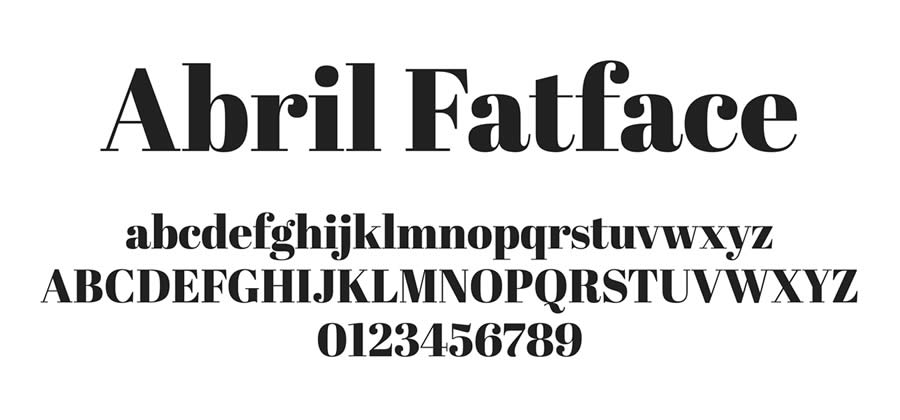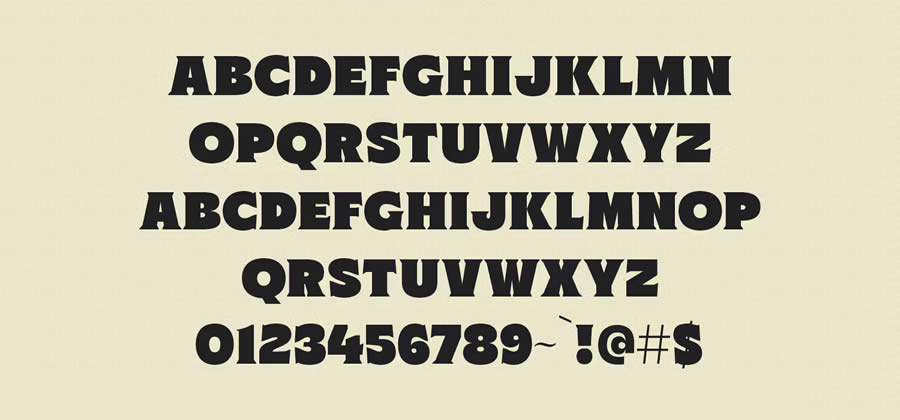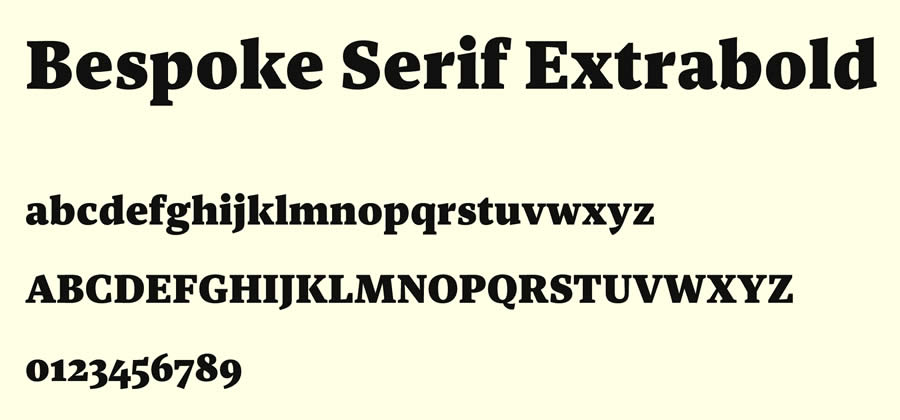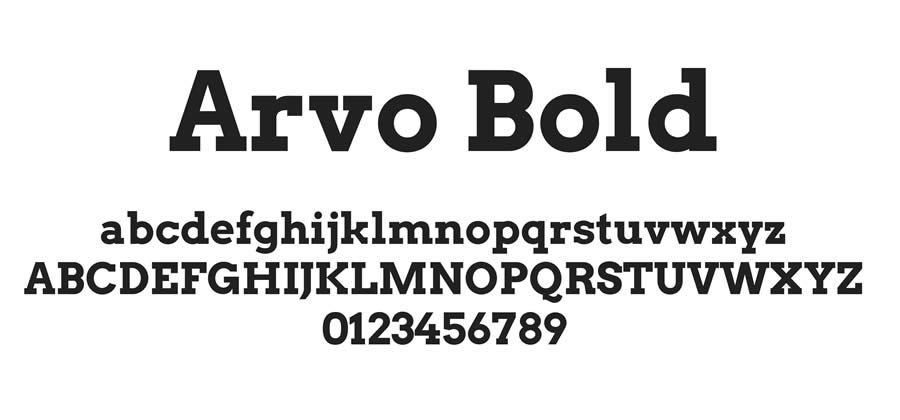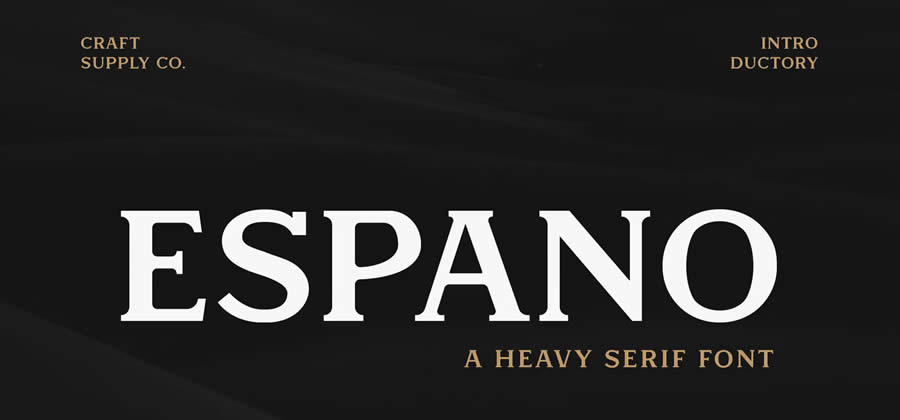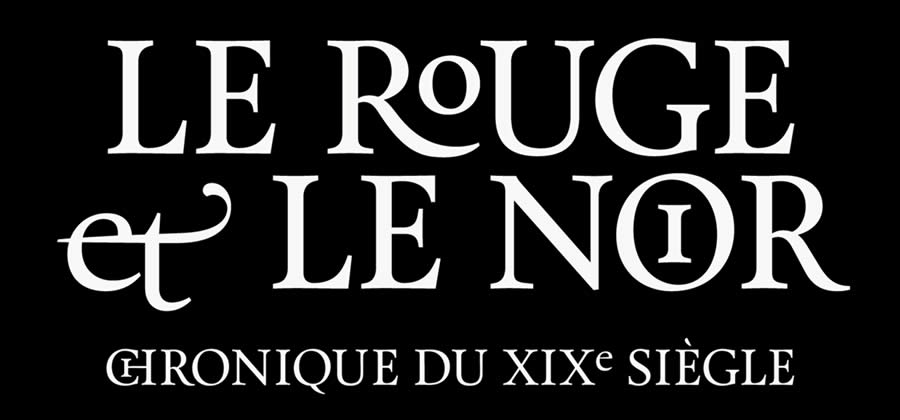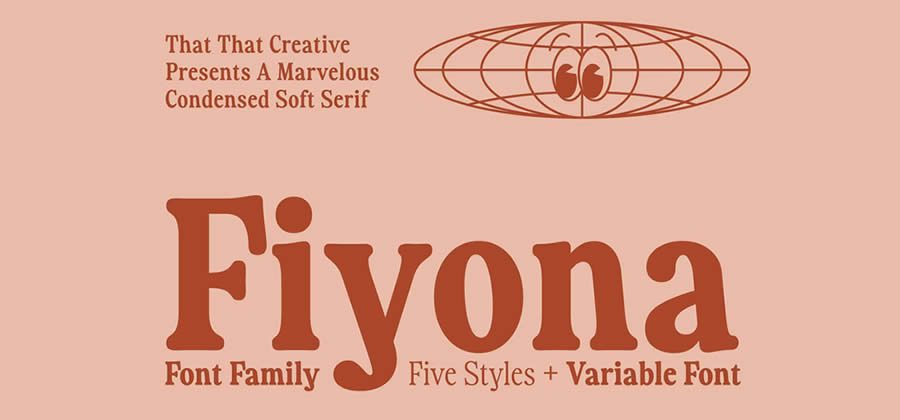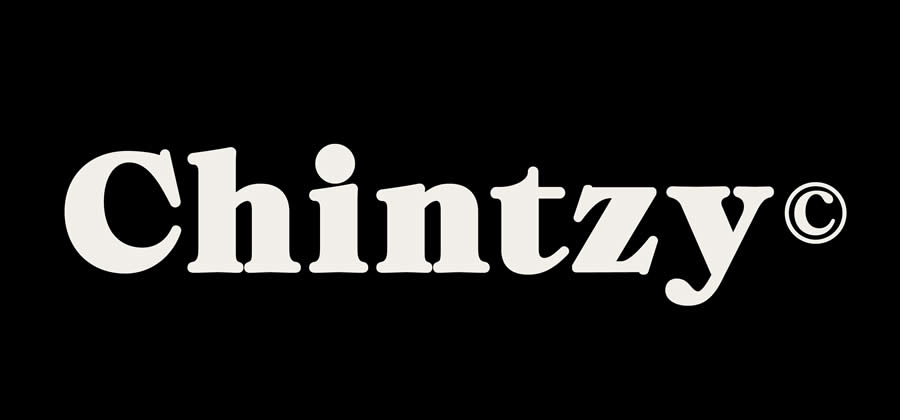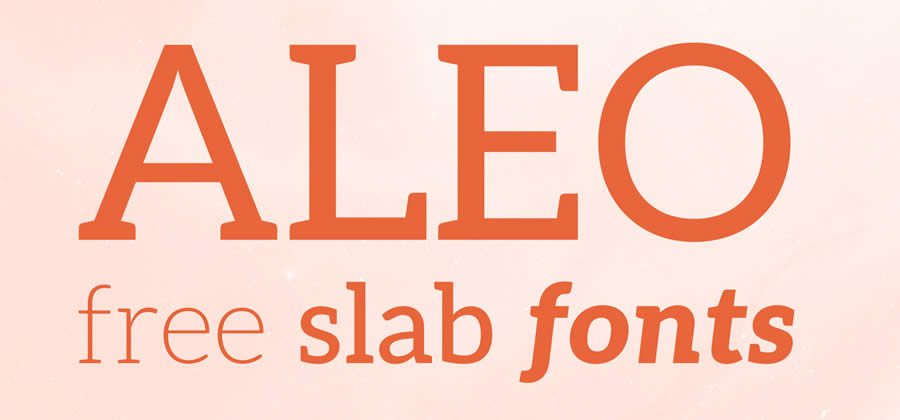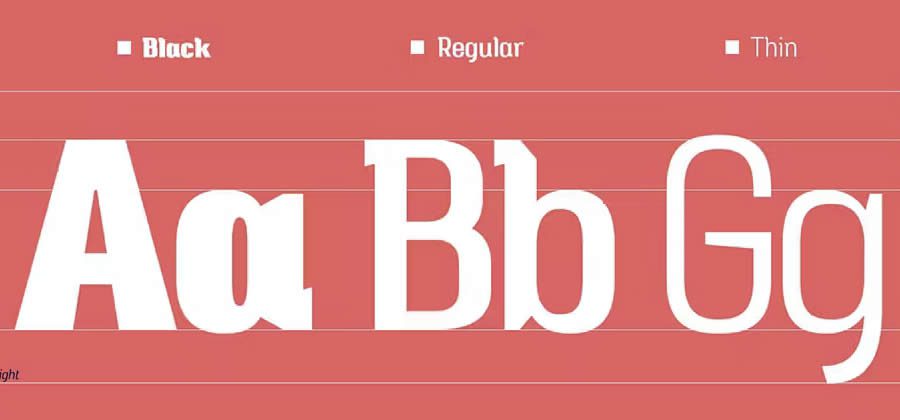
Heavy fonts are essential resources for any designer looking to make an immediate impact. They have the visual strength to command attention, characterized by their thick strokes and pronounced presence. They’re perfect for when your design needs to speak loudly and clearly.
These ultra-bold typefaces are more than just eye-catching — they shape how a viewer feels about your message. Whether it’s the confidence of a bold headline or the urgency of a promotional ad, heavy fonts can amplify your design’s voice. This makes them ideal for headlines that need to stand out, advertisements that need to capture quick interest, or any text that needs heavy emphasis. Why Choosing the Right Heavy & Ultra-Bold Fonts Matters
Categorized into serif, slab serif, sans-serif, and display, in this collection we share a curated selection of the best free heavy and ultra-bold fonts currently available. These are the heavy fonts you’ve been looking for!
Heavy & Ultra Bold Serif Fonts
These fonts feature prominent, bold strokes combined with traditional serifs, providing a powerful yet elegant appearance. They’re excellent for authoritative print media and digital content where visual impact and readability are essential.
Abril Fatface Fonts (Free)
Inspired by 19th-century advertising typography, Abril Fatface features an ultra-bold stroke and fine details, making it perfect for elegant headlines and print materials.
Norgen Heavy Serif Font
A robust, modern serif with clean lines and geometric influence, Norgen delivers a contemporary feel that is suitable for impactful editorial content and assertive branding designs.
Bespoke Serif Font (Free)
Bespoke Serif is characterized by its tailored appearance and sturdiness, making it a solid choice for any design needing to convey reliability and style.
Arvo Font Family (Free)
Arvo is a geometric serif that balances well between heavy and light strokes, offering excellent readability for both print and screen applications.
Espano Heavy Serif Font
Espano blends classic serif elegance with bold modernity, providing a dynamic tool for standout headlines and logos that demand attention.
Calendas Plus Bold Serif Font (Free)
Calendas Plus incorporates soft brush-like features and strong serifs, which are ideal for creating a sophisticated yet approachable look in upscale marketing materials and book covers.
Fiona Retro Serif Font
Fiona captures the essence of vintage design with its heavy, decorative serifs and slightly condensed letters, perfect for projects aiming for an old-school feel.
ZT Chintzy Heavy Font (Free)
This playful bold font stands out with its chunky letters and slightly irregular shapes, ideal for creative projects that want to add a touch of whimsy.
Heavy & Ultra Bold Slab Serif Fonts
Known for their block-like serifs and hefty form, these slab serifs exude strength and stability. They are ideal for making a pronounced impact in advertising, branding, or headline text that needs to stand out.
Aleo Slab Serif Black Font (Free)
Aleo offers a sleek, contemporary design with well-balanced proportions and excellent legibility, making it suitable for both display and body text in both professional and creative settings.
Crabs Slab Serif Font
A sturdy slab serif with a friendly appeal, Crabs Slab provides a versatile foundation for branding, advertising, and editorial design that requires a touch of warmth.
Chunk Ultra-Bold Slab Serif (Free)
Chunk is a bold, slab-serif font that offers a robust and friendly appearance, perfect for eye-catching headlines and strong statements in print and digital formats.
Toma Sunn Strong Slab Serif Font (Free)
Toma Sans presents a sunny, bold look with rounded edges, ideal for engaging advertisements, playful branding, and user interfaces.
Heavy & Ultra Bold Sans-Serif Fonts
These sans-serif fonts offer a modern, clean aesthetic with heavy characteristics. They ensure excellent readability, perfect for dynamic branding and high-impact digital displays.
Frick Bold Headline Font (Free)
Frick is a geometric, all-caps typeface that stands out with its clean, sharp lines, suitable for modern logo design, headers, and text highlights where clarity is important.
Franie Geometric Sans-Serif Font
With its sleek, geometric structure, Franie excels in delivering a bold minimalist elegance for sophisticated logos, packaging, and high-impact visuals in contemporary designs.
Uni Sans Font Family (Free)
Uni Sans is a dynamic sans-serif that combines geometric precision with a slight character warmth. It is versatile for both text and display applications across various media.
Bemio Ultra-Bold Sans Serif Font (Free)
Bemio is an ultra-bold sans-serif that offers a friendly yet assertive tone, making it perfect for branding that needs to convey confidence and approachability.
Candice Heavy Bold Sans-Serif (Free)
And when pairing them with other typefaces, a good rule of thumb is to combine them with simpler, lighter fonts. This contrast not only enhances readability but also creates an appealing visual hierarchy.
Experimenting with these heavy and ultra-bold fonts can dramatically change the look and feel of your work. The free fonts here give you the flexibility to test multiple designs without any investment. Try them out in your next project to see how they can enhance your design.